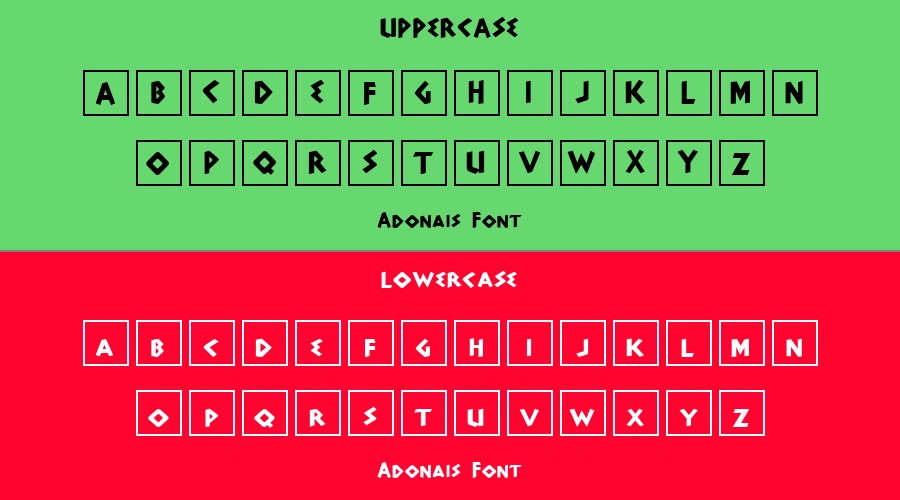
About Adonais Font
Adonais Font stands out for its distinctive combination of systematic design and page color. Ideal for brand guidelines, it provides the accuracy and functional utility that professional projects demand. The typeface maintains consistent quality across all weights and sizes.
Key features include refined organic forms and practical technical characters, enhancing typographic expression. In campaign headers applications, Adonais Font demonstrates exceptional file optimization. The joint construction and technical tradition contribute to its distinctive character and professional appeal.